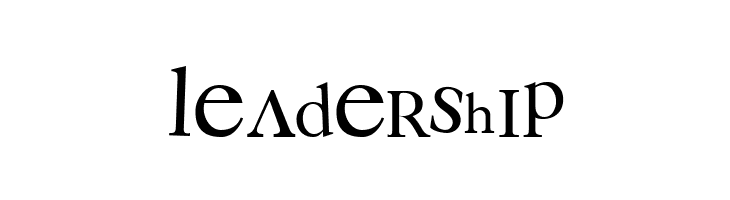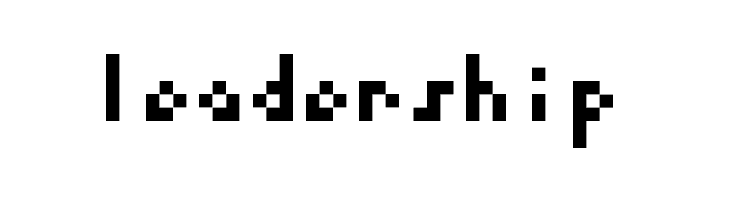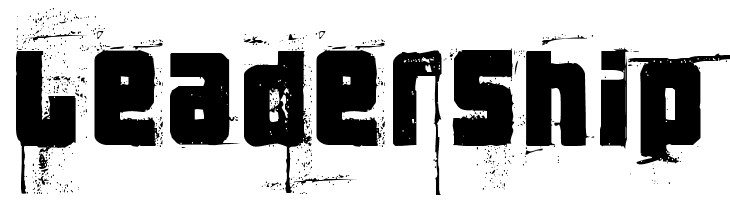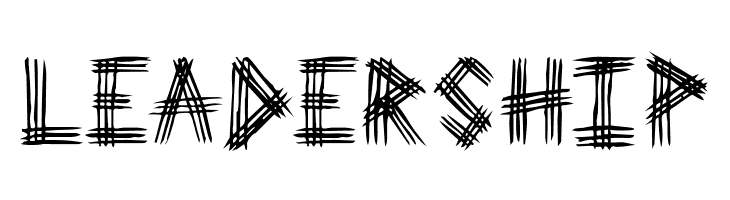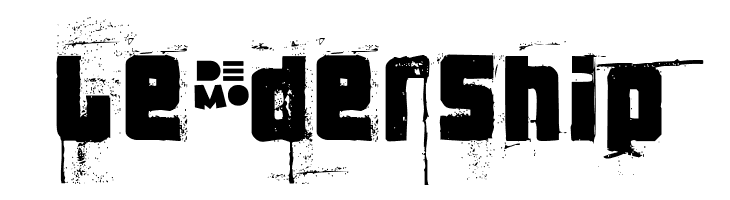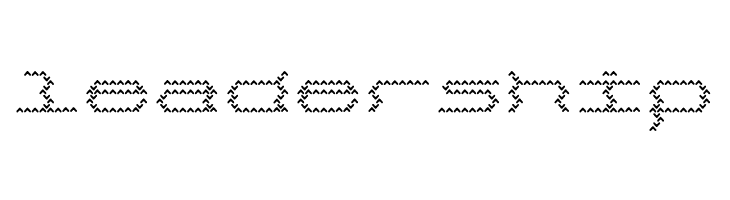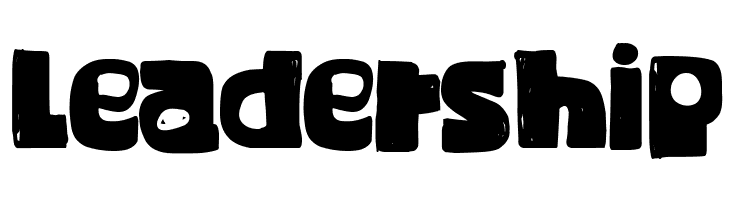
A pixelated, blocky font inspired by retro digital displays.
A modern serif font with playful serifs and dynamic character forms.
A decorative font with a zigzag, stitched appearance.
A bold, scratch-like font with a chaotic, hand-drawn appearance.
A bold, playful, and quirky font with a hand-drawn appearance.
A bold, distressed font with a gritty, urban aesthetic.